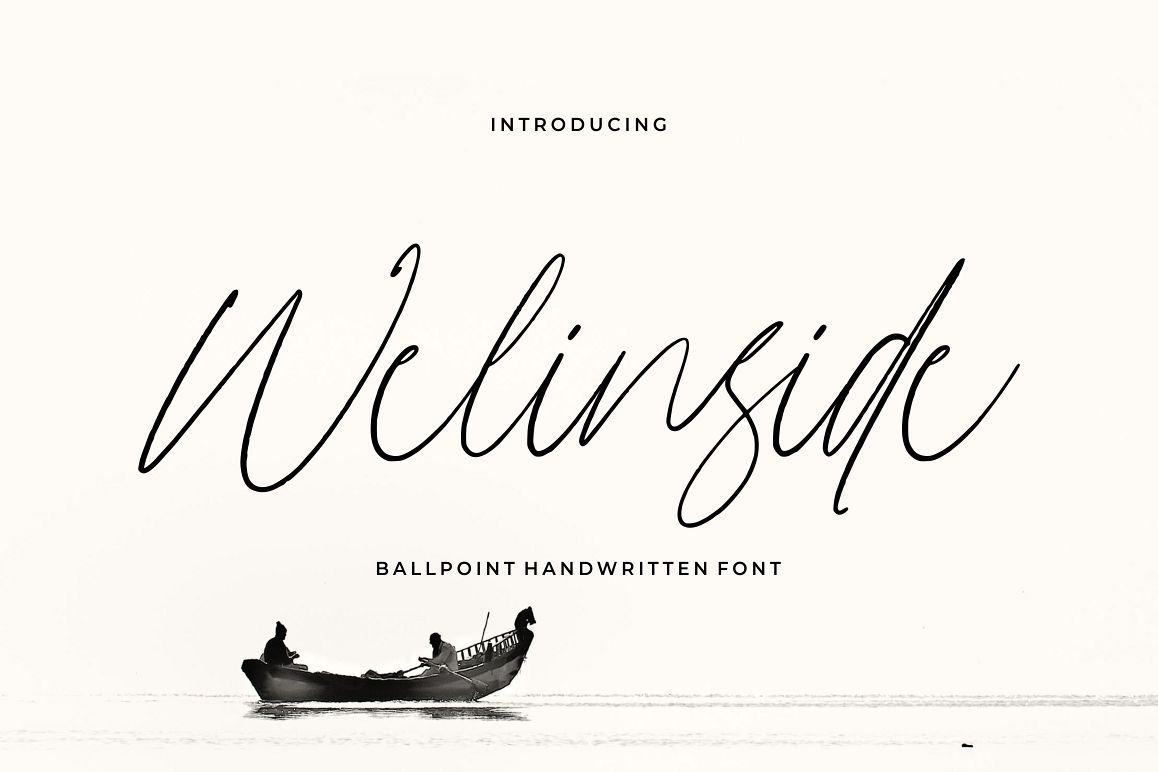
Wellinside - Handwritten Font
Welinside
Introducing Welinside - Handwritten Font
Welinside - Handwritten Font is a natural & modern handwritten font. I'ts Perfect for logo, invitation, stationery, wedding designs, social media posts, advertisements, product packaging, product designs, label, photography, watermark, special events or anything. This font include : Welinside OTF-TTF-WOFF, Ligatures, and also Multilingual support.What's Advantages Welinside ?